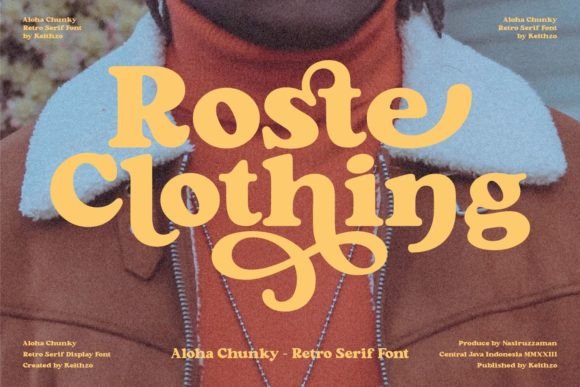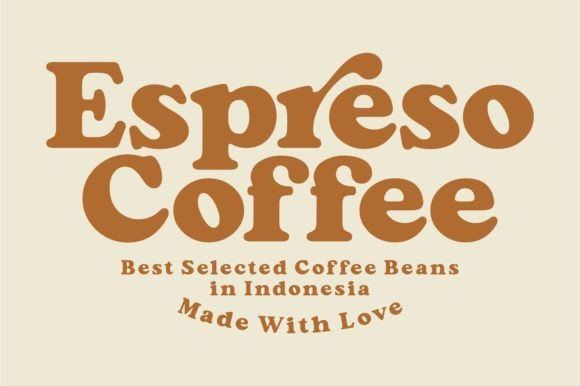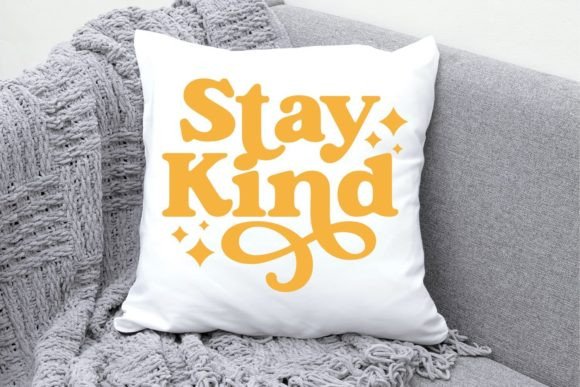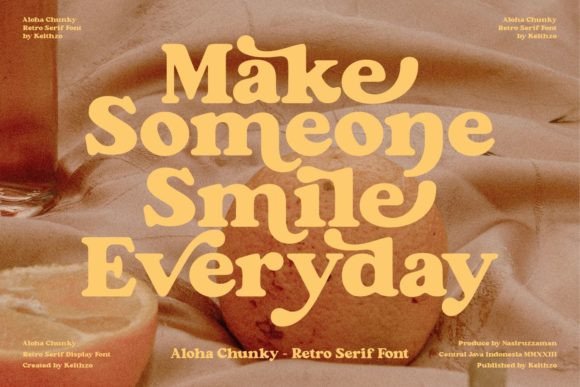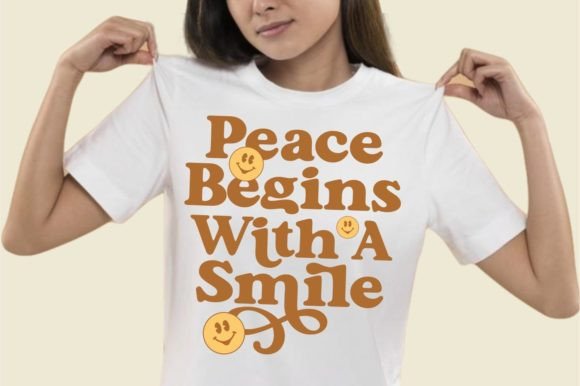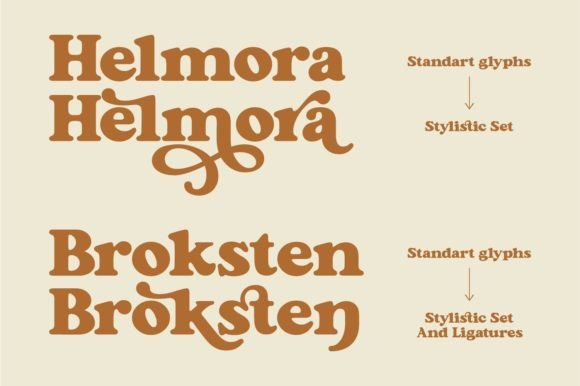
Aloha Chunky Font: Time to Get Groovy
As a designer, have you ever found yourself rummaging through your archives for that perfect font to transport your audience back to the carefree days of the 1970s? Maybe you’re working on a project that requires a dash of nostalgia and a pinch of personality. Whatever the case, you’re in luck because we’ve got just the thing – the Aloha Chunky Font.
This retro, groovy serif font is a true gem, featuring chunky letterforms with thick serifs and rounded edges that evoke the spirit of vintage lettering. With its playful aesthetic, the Aloha Chunky Font is perfect for creating retro designs, such as posters, album covers, and branding materials.
For designers, the Aloha Chunky Font is a valuable asset, offering a unique opportunity to add a touch of nostalgia and whimsy to any project. Whether you’re working on a music festival poster or a retro-themed website, this font is sure to bring a smile to your audience’s faces.
Aloha Chunky Font Key Features
- Font Type: Display Font, designed to make a statement with its unique, chunky style.
- Unique Characteristics: Features a distinctive, chunky design with rounded edges and a friendly, approachable feel.
Aloha Chunky Font Review
Aloha Chunky Font is a fun and playful font that’s perfect for adding a tropical vibe to your designs. ✨ I love how it captures the essence of Hawaii and brings a sense of relaxation and calmness to the viewer. The chunky style is visually appealing and adds a lot of texture to the font.
One of the standout features of Aloha Chunky Font is its versatility. ✨ You can use it for a variety of projects, from branding and logos to social media graphics and posters. It’s also a great choice for creating a cohesive look across multiple platforms.
What Doesn’t Work So Well
- ⚠️ Limited character set: The font has a limited character set, which can make it difficult to use for longer pieces of text. You may need to use a secondary font to supplement the main text.
- ⚠️ Not suitable for fine details: The chunky style of the font makes it difficult to use for fine details or intricate designs. It’s best to use it for bold and eye-catching headlines.
Overall, I think Aloha Chunky Font is a great choice for designers who want to add a fun and playful touch to their designs. While it has some limitations, it’s a versatile font that can be used in a variety of projects. With a little creativity, you can use it to create some amazing designs.
Aloha Chunky Font is suitable for:
- Children’s products and packaging
- Summer-themed designs and events
- Fun and playful typography projects
Alternatives to Aloha Chunky Font
Pacifico is a beautiful, modern script font that is perfect for creating a relaxed and beachy vibe. It’s great for use in branding, signage, and other design elements where a casual, laid-back feel is desired.
Comparison to Aloha Chunky Font: While both fonts have a relaxed feel, Pacifico is more elegant and sophisticated. Aloha Chunky Font has a more playful, chunky feel that’s perfect for creating a fun and lively atmosphere.
Great Vibes is a modern, handwritten font that’s perfect for creating a fun and energetic vibe. It’s great for use in branding, social media, and other design elements where a playful, youthful feel is desired.